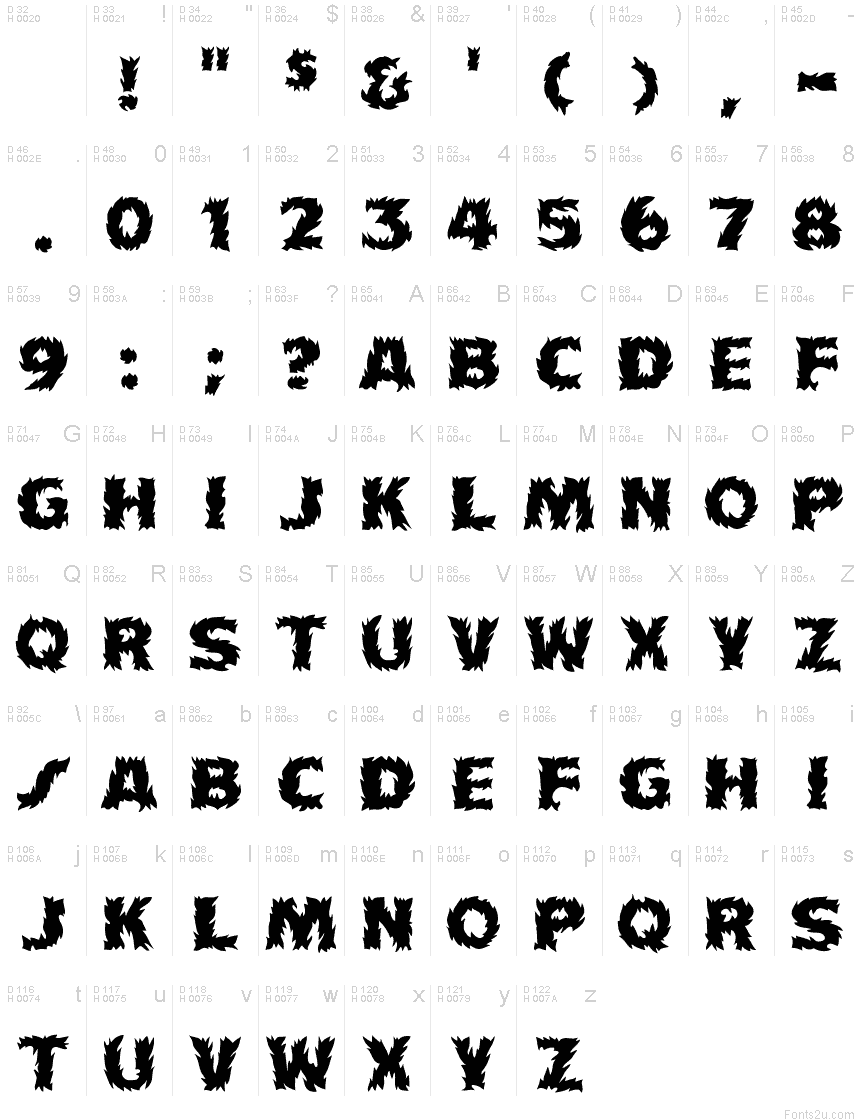
Firecat Medium
Firecat font by David Rakowski is a free decorative display typeface that looks like it’s been carved out of black flames. Each letter bristles with jagged, flame‑shaped edges, so words feel like they’re crackling and hissing off the page. The chunky silhouettes stay surprisingly legible, giving you a wild, chaotic texture without losing the message.
Using Firecat, this free font shines on horror movie posters, Halloween flyers, metal band logos, game titles, haunted house signage, and bold YouTube thumbnails. Its spiky rhythm pulls the eye from letter to letter, turning short phrases into graphic artwork all by themselves. For balance, pair Firecat with a clean, simple sans serif for body copy and keep it big and bold so those fiery contours have room to breathe.